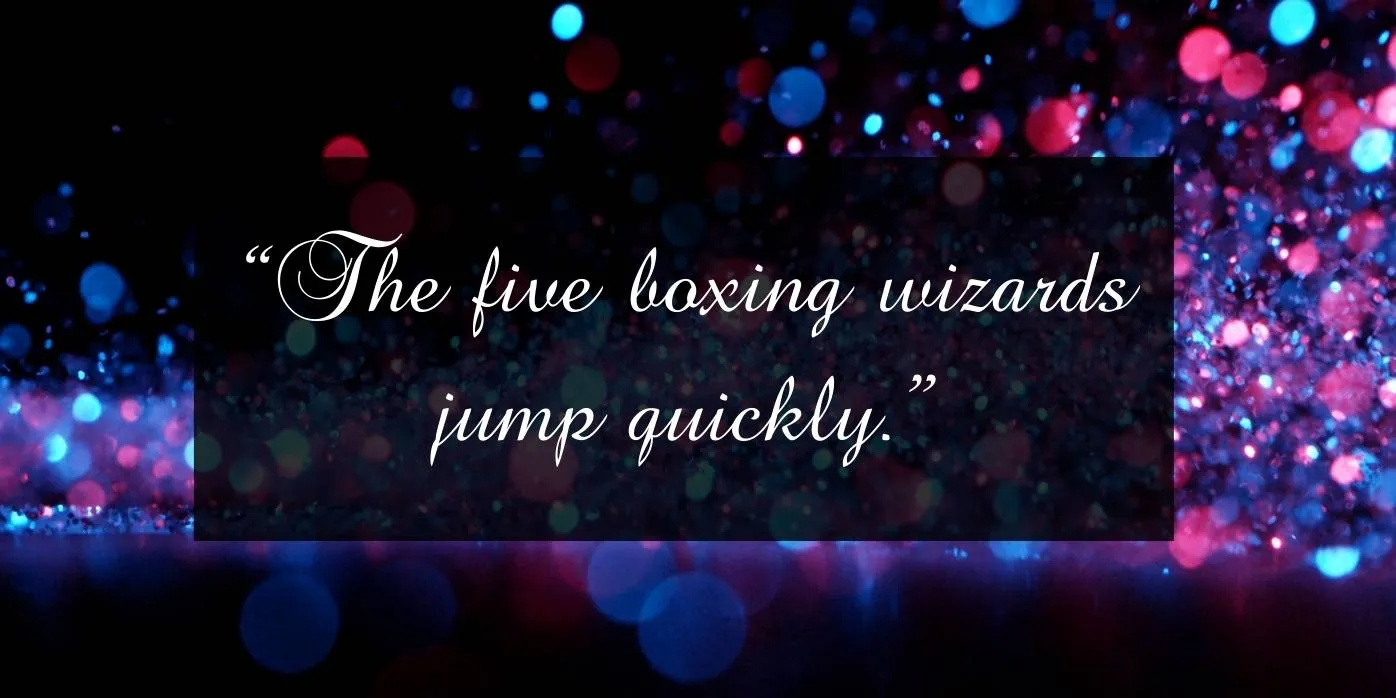
Brock Script Font
Here, we present a very gorgeous and tremendous typeface that has a lot of fame in the design industry named Brock Script Font. This cute font family belongs to the Script font family. The original designer of this typeface was Dieter Steffmann. The designer took soo much hard work to the completion of this awesome font family.
This stunning typeface consists of only one unique and classic style. This awesome typeface is best for use in different headlines and titles. Also, it includes more than 206 popular and stylish characters. This staggering font family becomes famous and popular because of its classic characters.
Its alternative have heart font and tattoo font have also been used for the purpose of the same design. Mostly, this stylish font is picked for various logos, card designs, and posters of movies. This classy font has a keen and clean texture which is the reason Brock Script Font is popular all over the world. Another amazing thing about this font is its very famous facility of online tool generator.